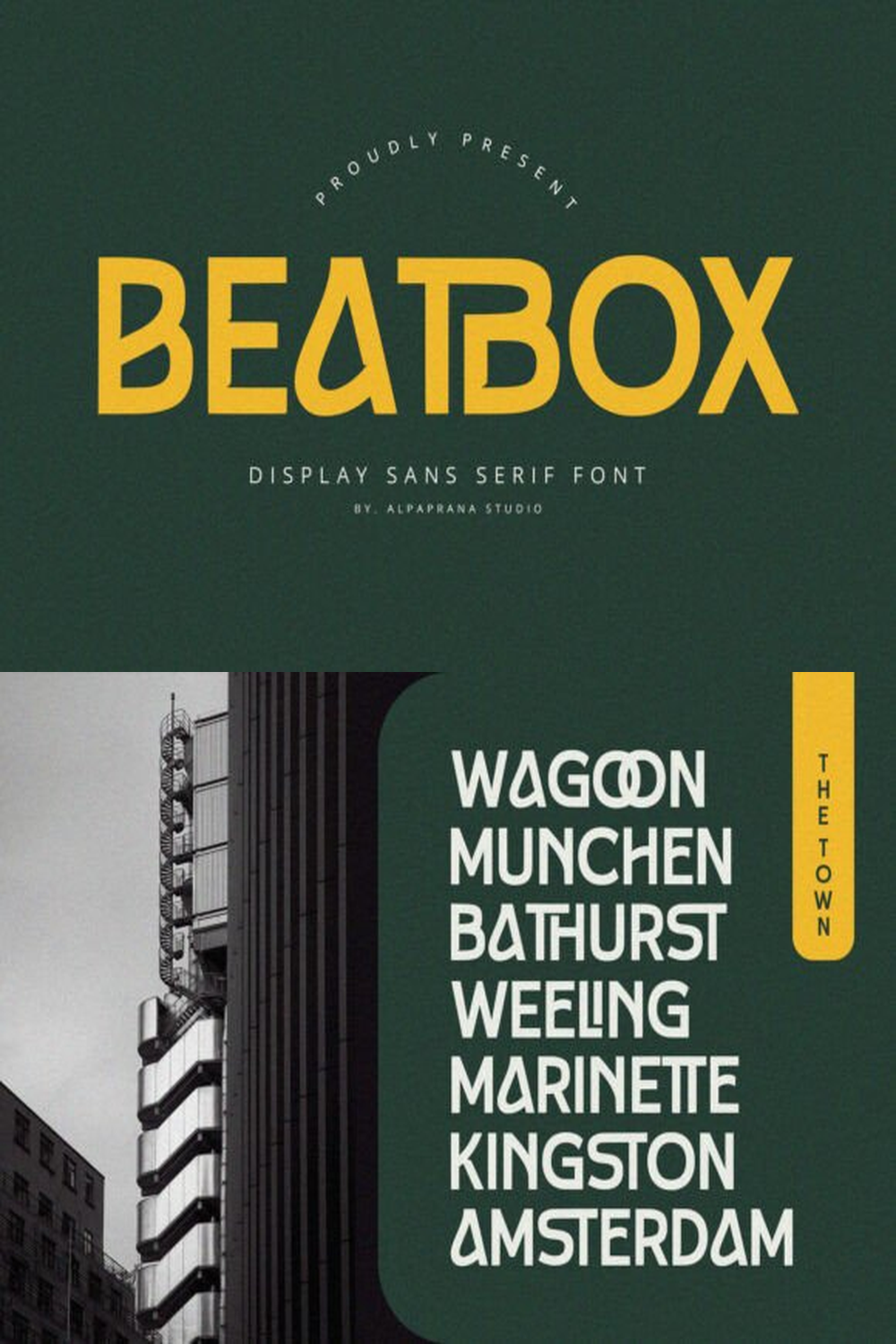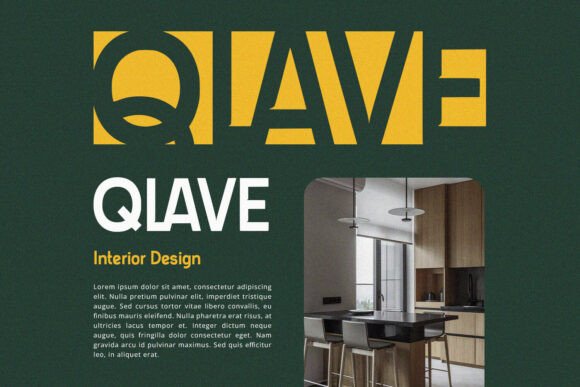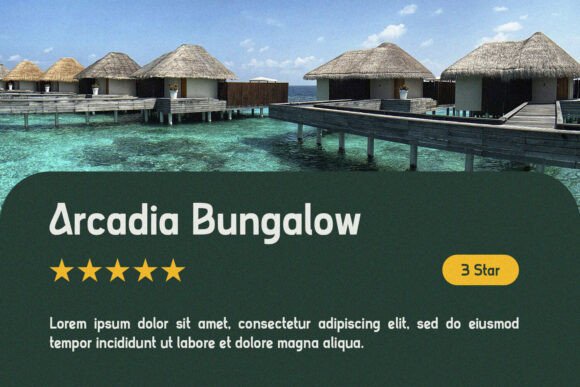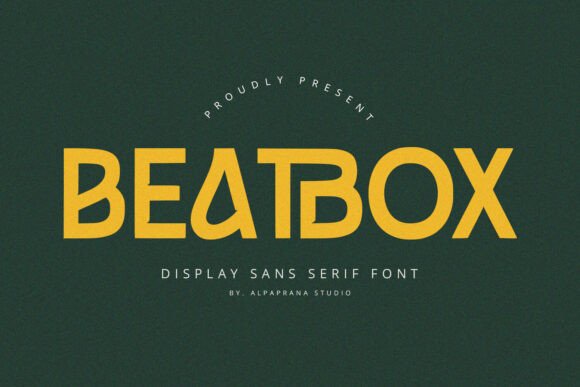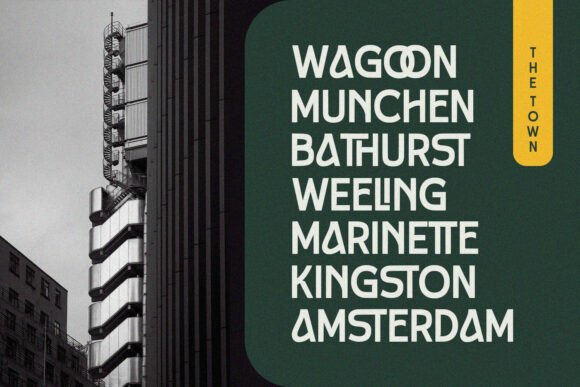
Beatbox Font: Bold Sans Serif for Modern Logo Design & Posters
About the Beatbox Font
Make a bold statement with Beatbox Font, a powerful and memorable font. Beatbox is a display sans serif font with elegant and modern feels. It will be perfectly used for magazines, packaging, posters, shopping bags, t-shirts, book covers, photography, special events and other design projects.
Beatbox Font Usage Examples